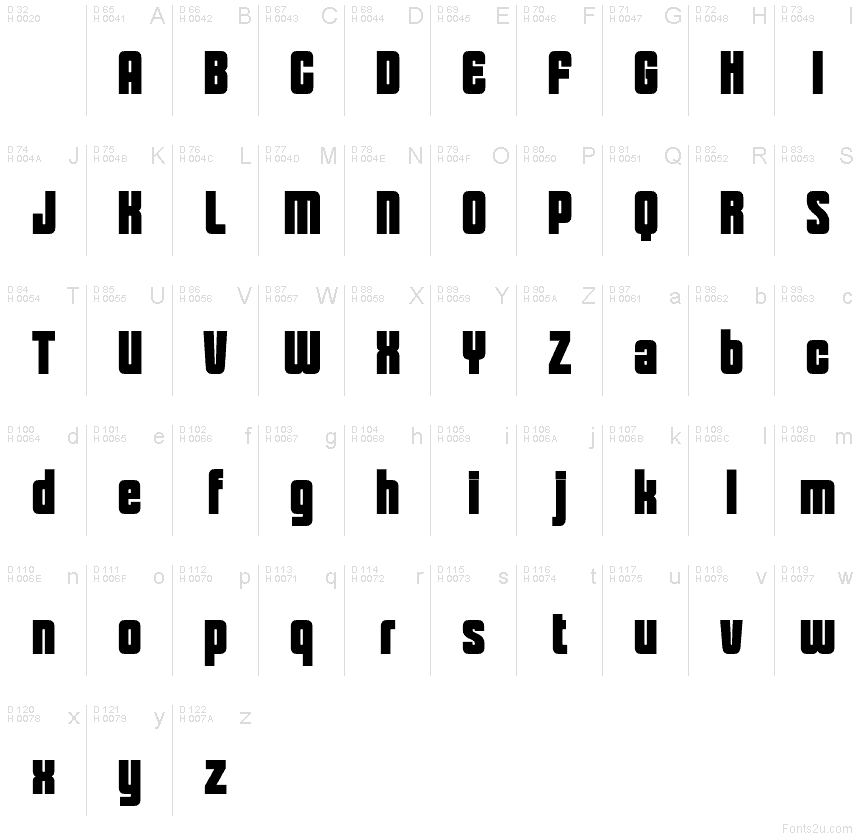
CS Elastix Regular Demo
CS Elastix font is a retro display typeface by Craft Supply Co. that channels a distinctive industrial and modernist influence. The letters are highly geometric, blocky, bold, and condensed for an impactful appearance. Use it freely in a variety of branding contexts where a visual style consistent with arts and design from within the last 100 years is valued.